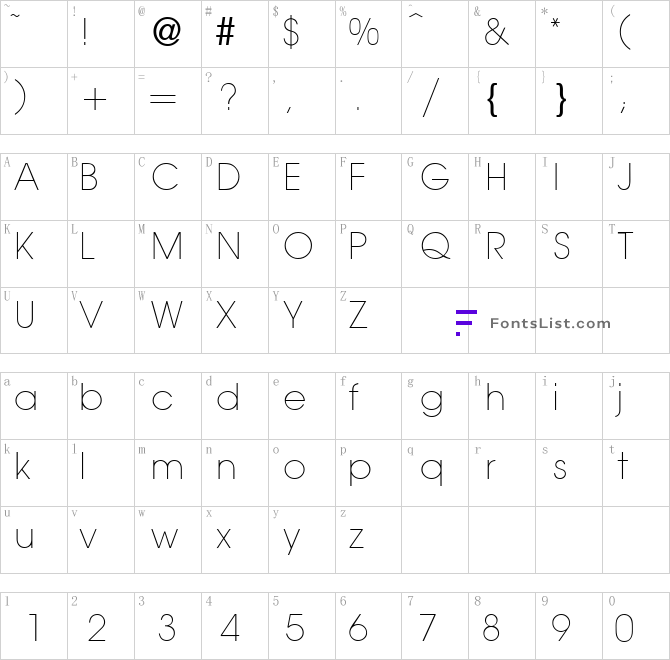
- Font Name:AvantageSmall
- Subfamily:Altsys Fontographer 4.0 AvantageSmall Normal
- Full Name:AvantageSmall Normal
AvantageSmall-Normal.ttf is a very beautiful artistic font, AvantageSmall-Normal.ttf is widely used in the design and printing of various books and pictures,AvantageSmall-Normal.ttf has a strong visual impact,AvantageSmall-Normal.ttf is a commonly used font in newspapers, magazines and books, and is used in posters, e-commerce Poster design, store design, logo design, font design and other fields.AvantageSmall-Normal.